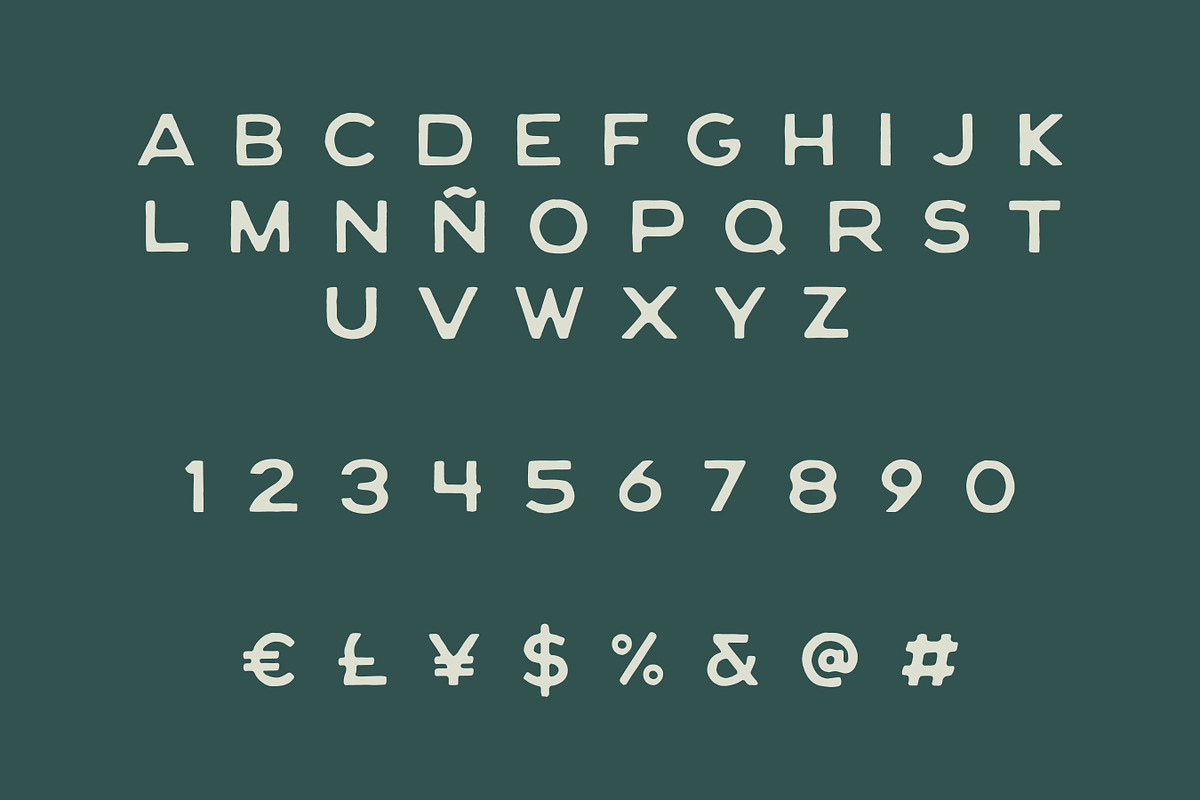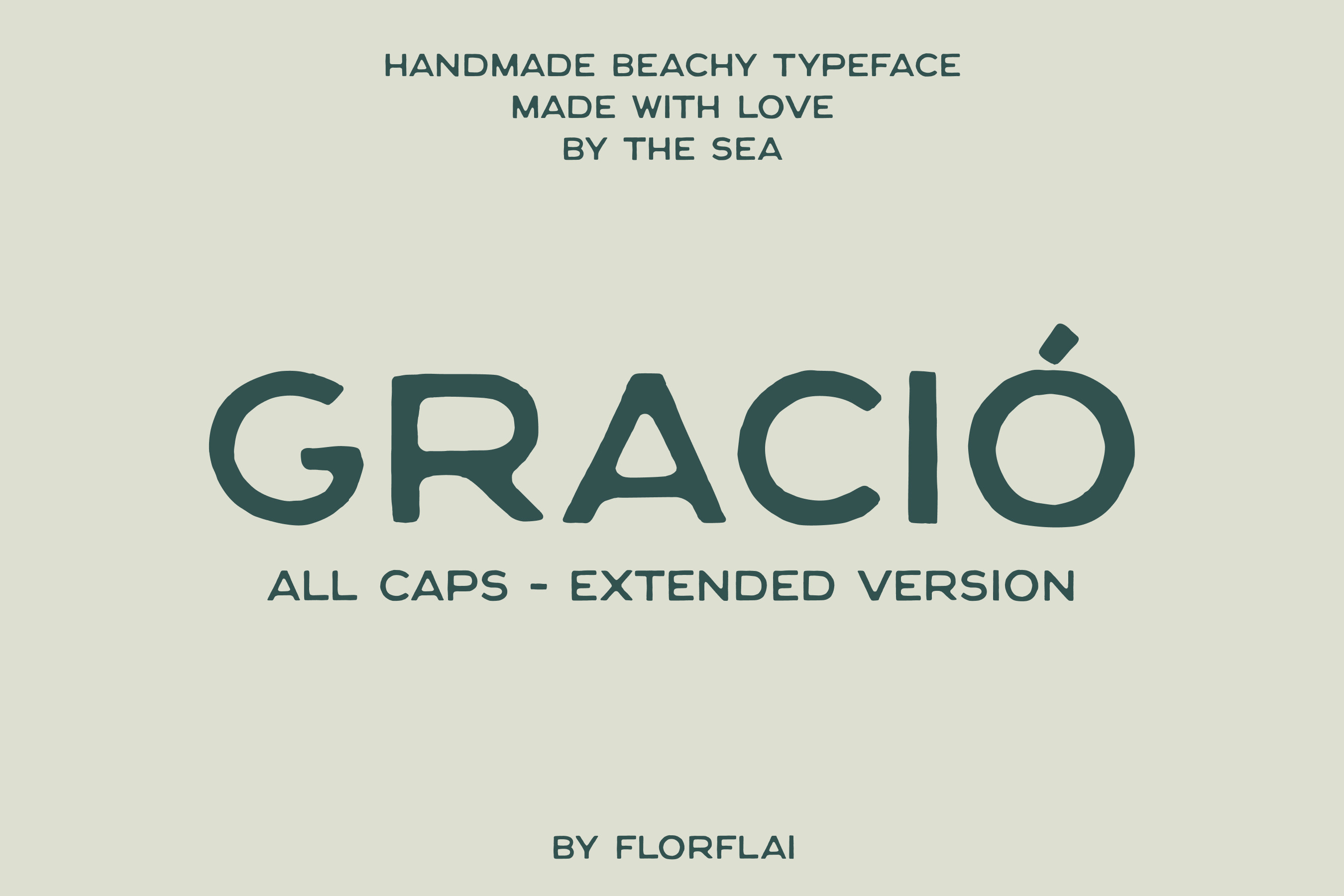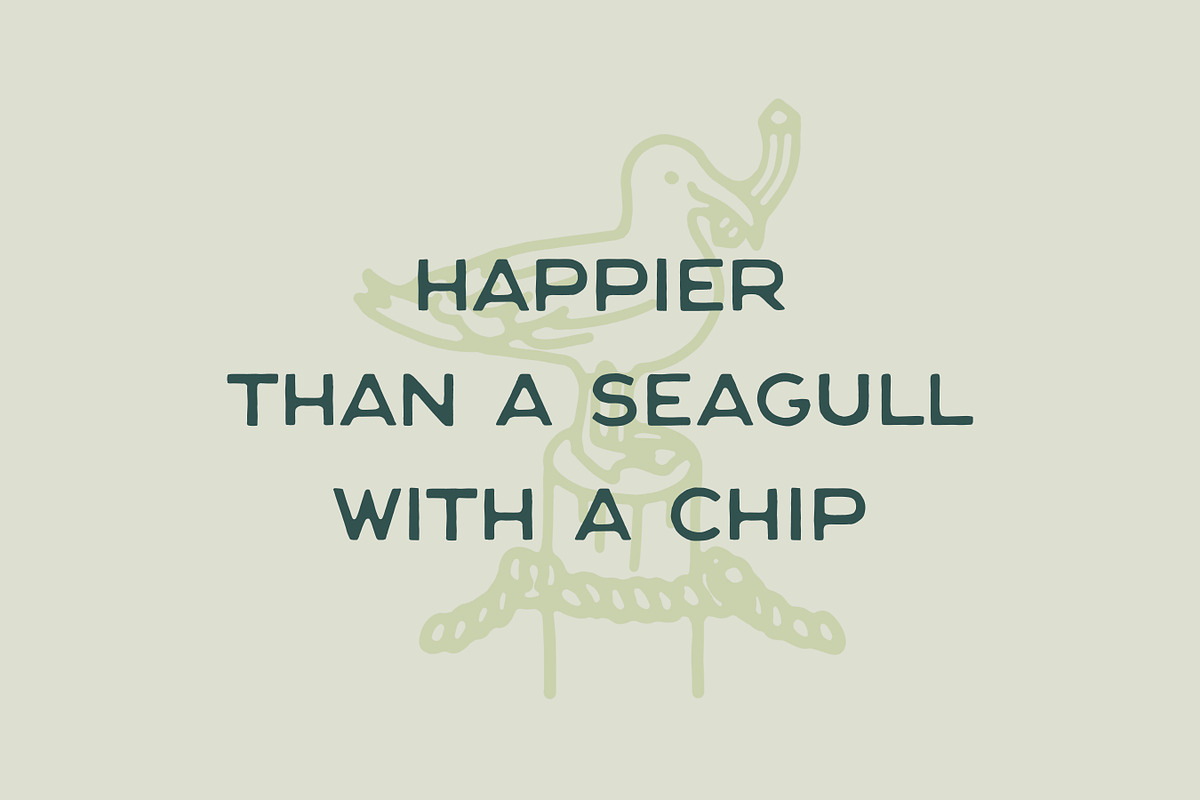
Gració font - extended
Gració font is inspired by Cala Gració and the essence of coastal living with its handmade sans serif style, infused with the organic vibes of Ibiza's seaside. Each character reflects the relaxed, carefree atmosphere of beachside creativity, reminiscent of lazy afternoons spent by the sea.
With its fluid strokes and natural charm, Gració is perfect for branding, social media graphics, or adding a touch of coastal elegance to any design project, this font embodies the effortless allure of island life.
Its irregular contours and artisanal feel lend a unique character to every word, inviting viewers to immerse themselves in the tranquil beauty of Ibiza's coastal landscape. Whether adorning a beachfront cafe menu or gracing the cover of a travel brochure, Gració font transforms text into a visual journey, an invitation to escape to the sunny Ibiza.
This version includes symbols.